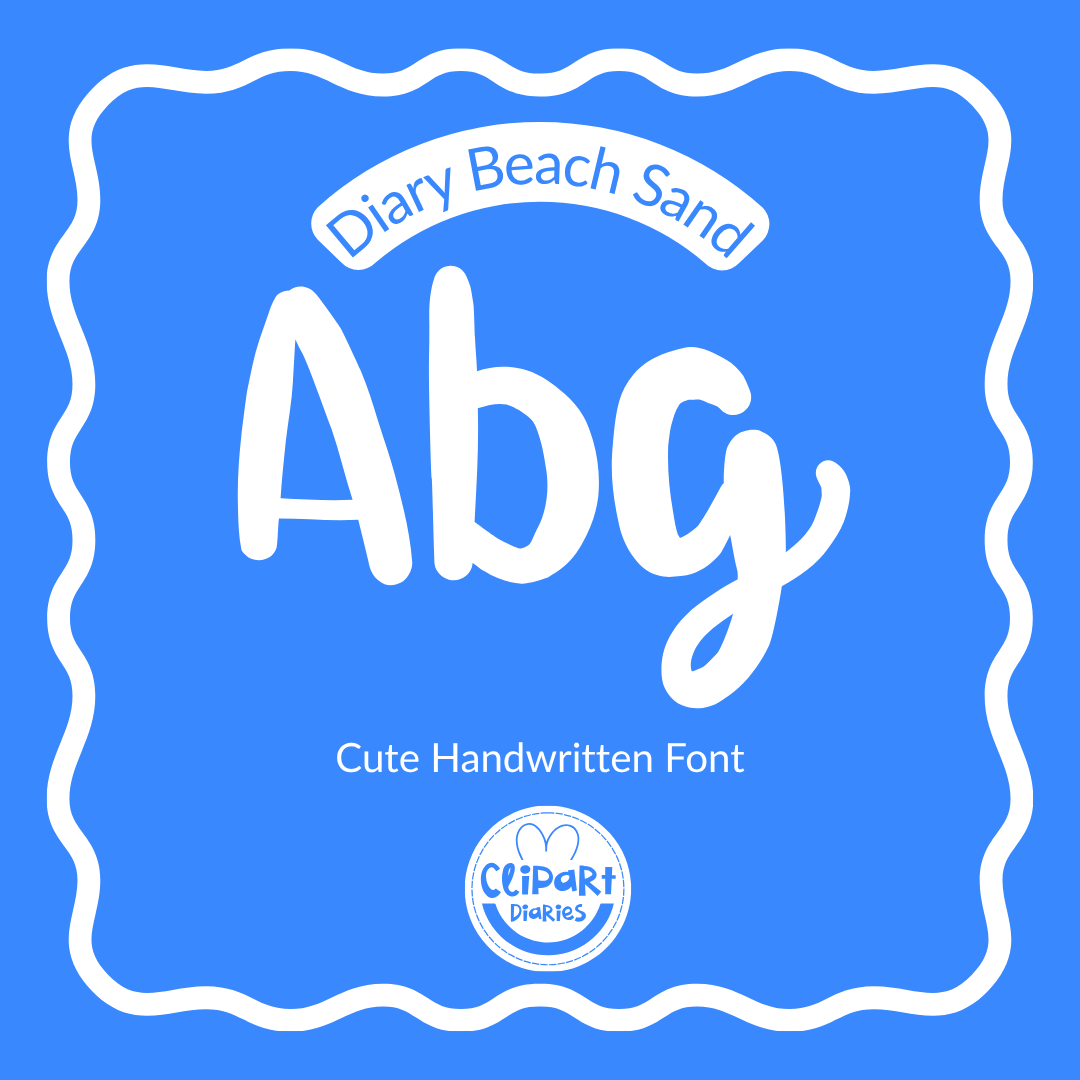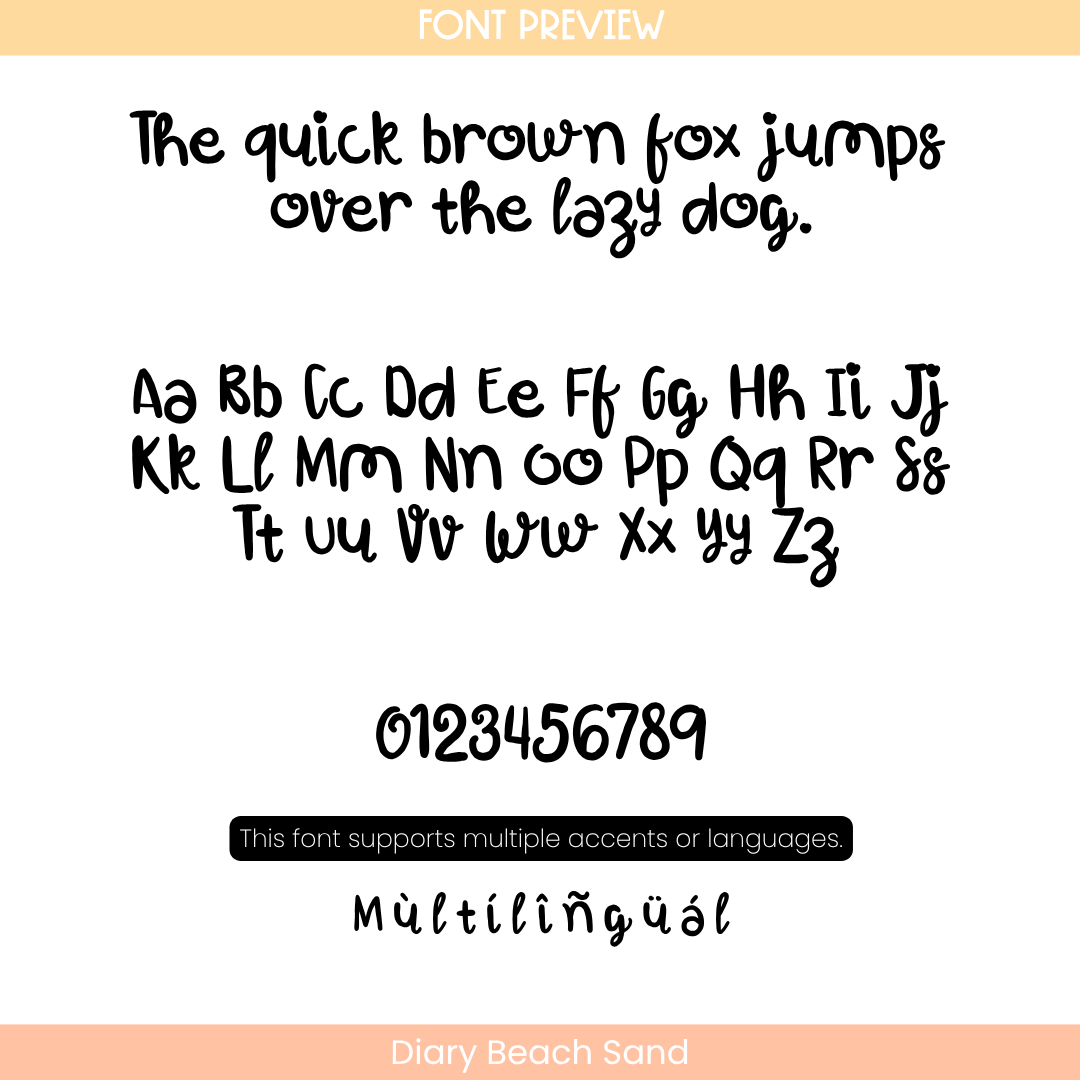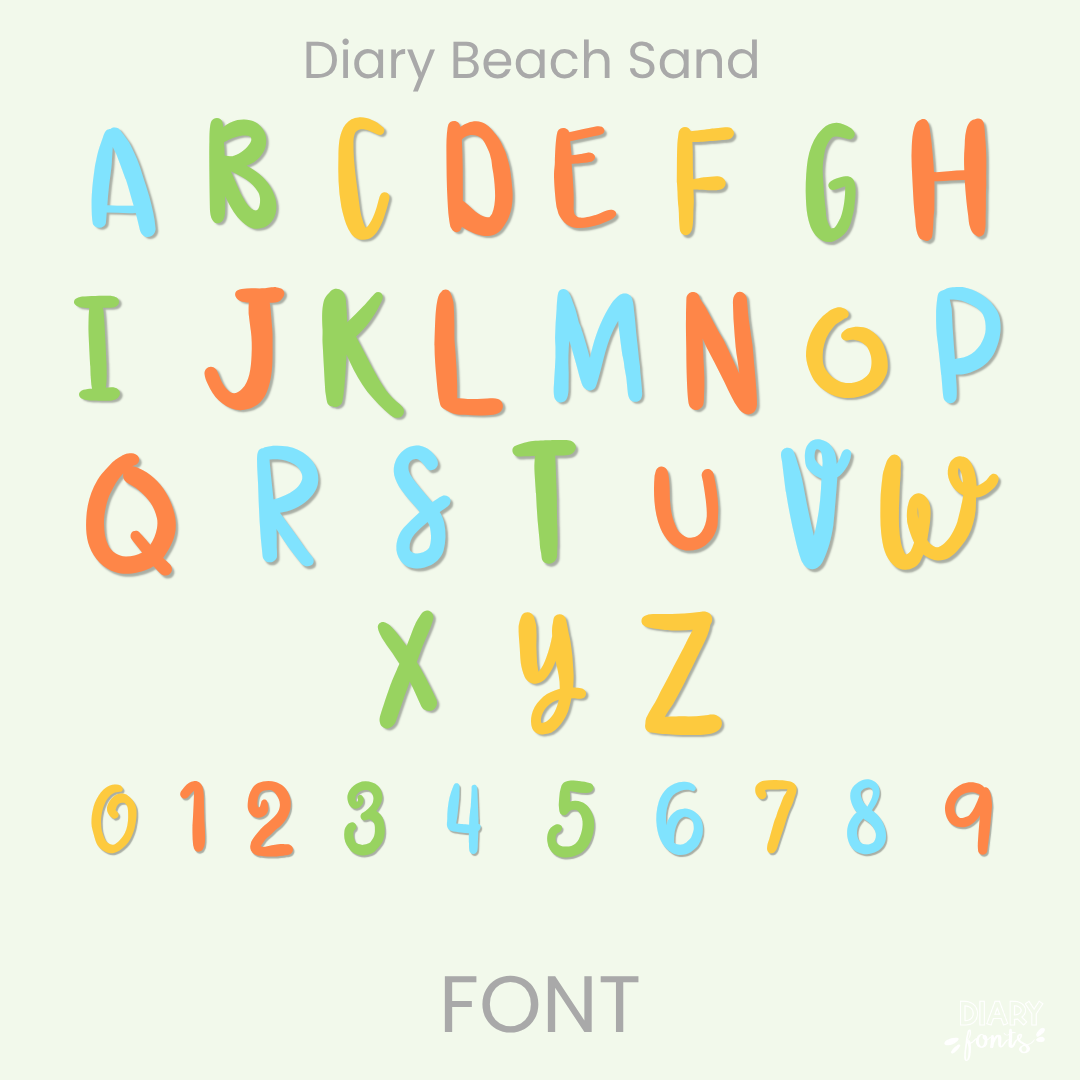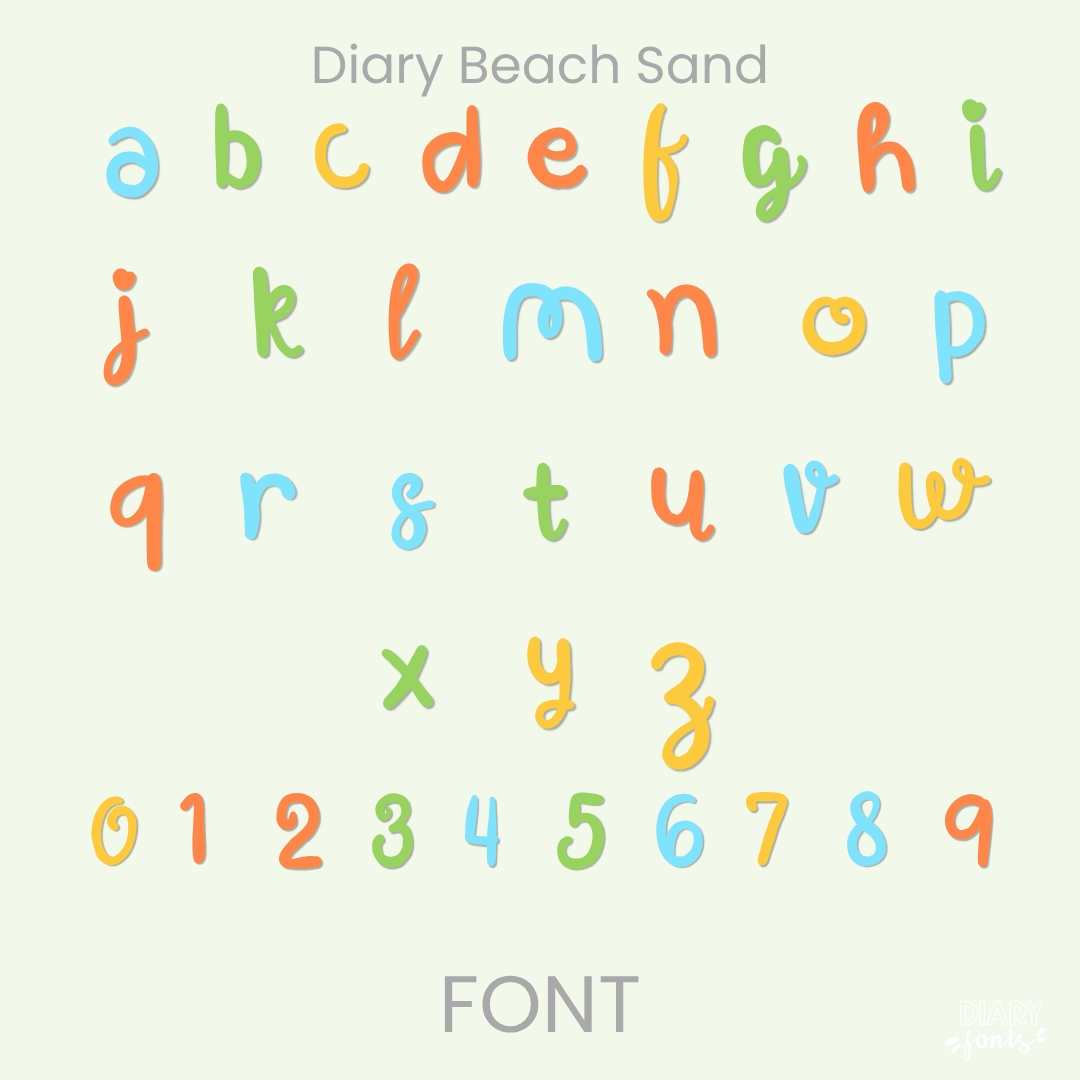
Give your creative projects a charming, hand-drawn feel with Diary Beach Sand, a cute handwritten font that combines a friendly aesthetic with professional legibility. This versatile typeface includes a comprehensive set of uppercase and lowercase letters, numbers 0–9, and support for multiple accents and languages, making it an excellent choice for diverse educational content. It is designed for seamless compatibility with major software like MS Office and Adobe Apps, as well as popular iPad tools like GoodNotes and Procreate. Whether you are designing classroom decor, worksheets, or digital planners, Diary Beach Sand offers a polished yet organic look that is perfect for both personal and commercial use.
Diary Beach Sand Font
The Diary Beach Sand is a cute, handwritten font designed to add a warm and personal touch to your digital resources and classroom materials.